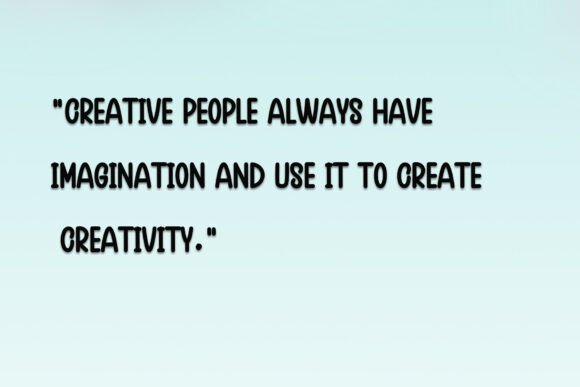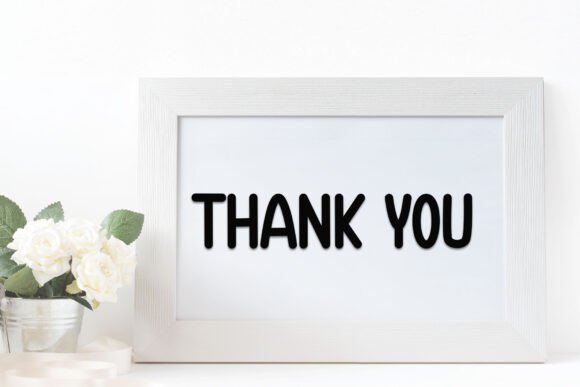
Introduction to Retro Winter Font
As designers, we’ve all been there – staring at a blank page, trying to conjure up the perfect aesthetic for a creative project. The right font can make all the difference, transporting your design from bland to grand. For me, it was a cold winter morning when I stumbled upon the Retro Winter Font – its elegant, handwritten style instantly captured my heart.
As I delved deeper into this beautiful font, I realized its timeless charm was more than just a fleeting trend. The Retro Winter Font is a design resource that exudes class and sophistication, making it an invaluable addition to any high-quality design project. Its impeccable form and contemporary atmosphere ensure that your work stands out, whether you’re working on a free download or a paid project with a transparent background.
Key Features of Retro Winter Font
- Unique Vintage Aesthetic: This font features a distinctive retro style, perfect for adding a touch of nostalgia to your creative project.
- High-Quality Design: The Retro Winter Font is a high-quality design resource, carefully crafted to ensure crisp and clear typography.
- Perfect for Winter-Themed Projects: This font is specifically designed for winter-themed projects, adding a festive touch to your designs, invitations, and other creative projects.
Honest Review: Retro Winter Font
As a designer, I’m always on the lookout for high-quality design resources to enhance my creative projects. Recently, I stumbled upon the Retro Winter Font, and I’m excited to share my thoughts on it.
- ✨ Unique aesthetic: The font has a distinct, nostalgic charm that’s perfect for winter-themed projects.
- ⚠️ Limited character set: The font only includes a limited set of characters, which may not be suitable for longer text-based projects.
- ⚠️ Not ideal for small text: Due to its bold and ornate design, the font may not be the best choice for small text sizes.
Overall, I think the Retro Winter Font is a great addition to any designer’s toolkit. While it may have some limitations, its unique aesthetic and free availability make it a valuable resource for creative projects.
Retro Winter Font
The Retro Winter Font is a unique and high-quality design resource that can elevate your creative project to the next level. With its transparent background, you can easily incorporate it into various designs without any distractions.
Here are some tips to get the most out of the Retro Winter Font:
1. Use it for winter-themed designs, such as holiday cards or gift tags.
2. Combine it with other design elements, such as snowflakes or pinecones, for a cohesive look.
3. Experiment with different font sizes and colors to create a unique visual effect.
Is the Retro Winter Font suitable for high-quality creative projects?
Yes, the Retro Winter Font is designed to be a high-quality design resource. Its unique and stylish design makes it perfect for a wide range of creative projects, from posters and flyers to digital graphics and branding materials. The font’s high-resolution design ensures that it will look great in print and digital applications.